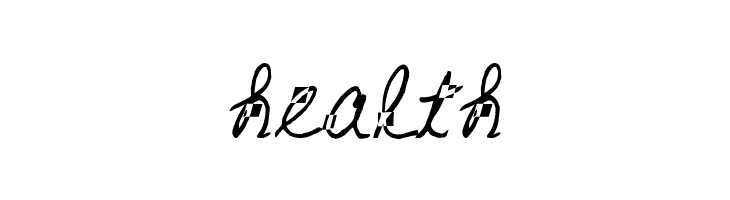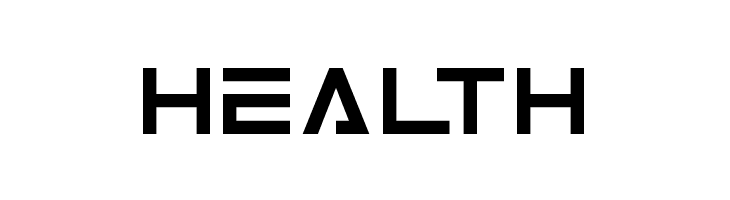
A decorative font with a playful, artistic style featuring brick and wire patterns.
A bold, elegant cursive font with flowing, ornate characters.
A bold, angular, and geometric font with a dynamic and edgy style.
A bold, handcrafted font with geometric and organic elements.